How to Recreate Vintage Logos with Modern Fonts
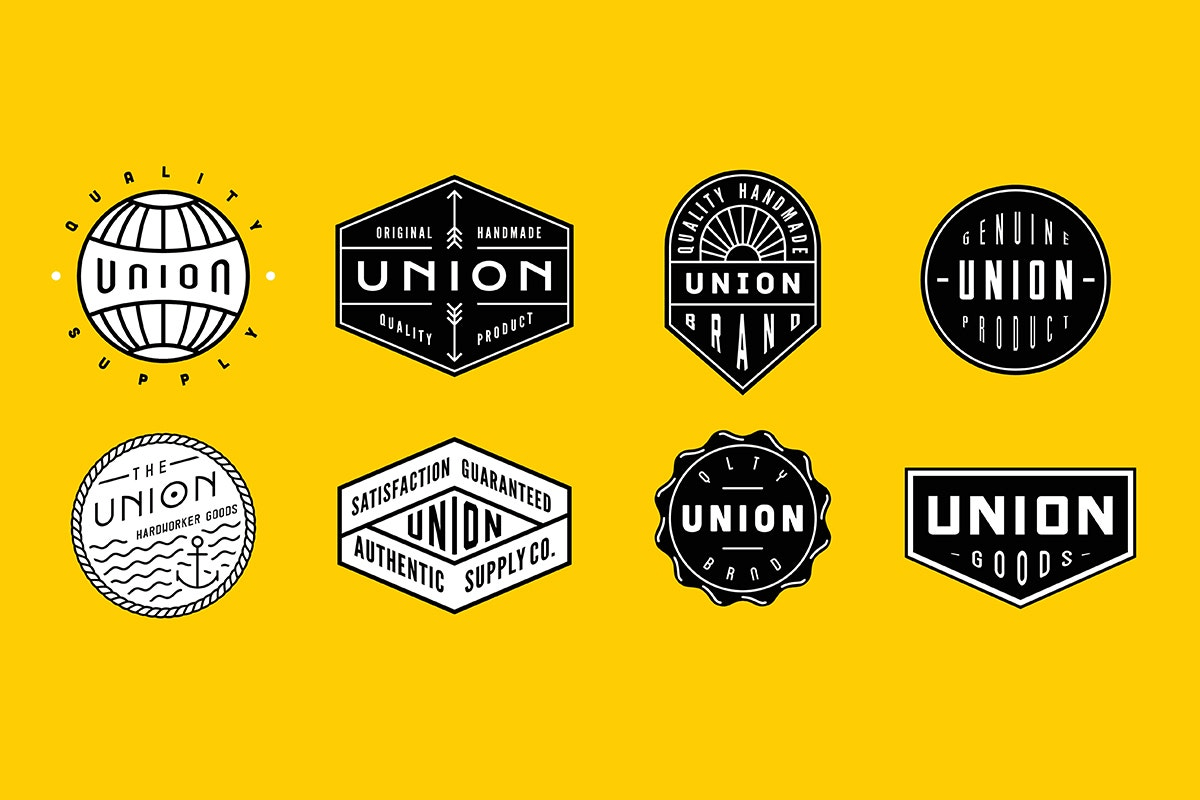
In today's design landscape, vintage logo fonts have become the cornerstone of nostalgic branding that resonates deeply with consumers. Whether you're designing for a craft brewery, artisanal coffee shop, or heritage apparel brand, mastering the art of recreating vintage aesthetics with contemporary typography can set your designs apart from the competition.
The appeal of retro design isn't just a passing trend it taps into powerful psychological triggers that build trust, authenticity, and emotional connection with audiences. Modern retro fonts offer the perfect balance between nostalgic charm and contemporary functionality, allowing designers to capture the essence of bygone eras while maintaining the readability and versatility required for today's multi-platform branding needs.
Why Nostalgia-Driven Branding Works
Retro aesthetics have proven remarkably effective in modern marketing because they leverage powerful emotional connections. When consumers see vintage-inspired designs, they experience a sense of familiarity and trust that newer, ultra-modern designs often struggle to achieve. This psychological phenomenon, known as the "nostalgia effect," makes brands appear more established, authentic, and reliable.
Studies show that nostalgia-driven branding can increase purchase intent by up to 23% because it creates an emotional bridge between past experiences and present decisions. Classic typography styles evoke memories of quality craftsmanship, attention to detail, and time-tested values that resonate across generations.
Essential Categories of Vintage Logo Fonts
Serif Fonts: Timeless Elegance
Traditional serif fonts form the foundation of vintage logo design, offering sophistication and readability that has endured for centuries. Modern interpretations of classic serifs like Times Roman, Garamond, and Caslon provide the perfect starting point for heritage-focused brands.
Best for: Law firms, academic institutions, luxury goods, and traditional businesses seeking to convey stability and trust.
Script Fonts: Handcrafted Charm
Script and calligraphic fonts bring an artisanal, hand-lettered quality that's perfect for brands emphasizing craftsmanship and personal attention. These retro logo design elements work exceptionally well for restaurants, boutiques, and artisanal products.
Best for: Restaurants, wedding planners, artisanal food brands, and creative services.
Slab Serifs: Bold and Industrial
Slab serif fonts, popularized during the Industrial Revolution, convey strength, reliability, and American craftsmanship. These fonts are ideal for brands that want to emphasize durability and traditional manufacturing values.
Best for: Construction companies, craft breweries, automotive brands, and outdoor gear companies.
Distressed and Weathered Typography
Aged and distressed fonts add authenticity by simulating the natural wear that genuine vintage signage would have developed over time. These fonts should be used sparingly and strategically to avoid appearing gimmicky.
Best for: Vintage clothing stores, antique shops, barbershops, and rustic restaurants.
Modern Retro Fonts That Balance Character with Readability
The key to successful vintage logo design lies in choosing fonts that capture retro charm without sacrificing modern functionality. Here are some standout options:
Display Fonts:
- Bebas Neue: Clean, condensed sans-serif with 1930s industrial appeal
- Oswald: Inspired by classic poster typography
- Righteous: Combines geometric precision with vintage character
Script Options:
- Pacifico: Casual brush script reminiscent of 1950s signage
- Dancing Script: Elegant calligraphy with contemporary refinement
- Lobster: Bold display script perfect for vintage-inspired headlines
Retro Logo Design Tips for Authentic Results
Color Palette Selection
Authentic vintage aesthetics rely heavily on period-appropriate color schemes. Muted, desaturated colors create more convincing retro designs than bright, saturated modern palettes:
- 1920s-1940s: Deep burgundy, forest green, cream, and gold
- 1950s: Pastel pink, mint green, sky blue, and coral
- 1960s-1970s: Burnt orange, avocado green, harvest gold, and chocolate brown
Texture and Grain Effects
Adding subtle texture, grain, or distressing effects can transform modern fonts into convincing vintage alternatives. However, restraint is crucial heavy-handed aging effects often appear artificial and detract from professionalism.
Effective techniques:
- Light paper texture overlays
- Subtle halftone patterns
The key lies in balancing authentic vintage aesthetics with modern functionality requirements. Whether you're working with classic serifs, handcrafted scripts, or industrial slab fonts, remember that the most successful vintage logo designs feel both timeless and contemporary a testament to the enduring power of well-chosen vintage logo fonts in contemporary branding.